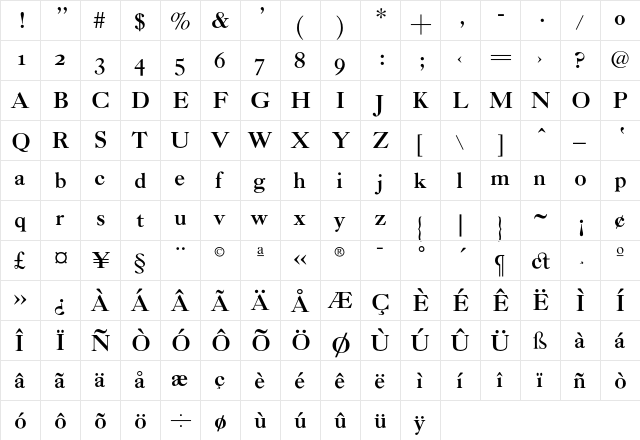
CaslonBoldZH Regular Font Preview
CaslonBoldZH Regular
Design Context for CaslonBoldZH Typeface
CaslonBoldZH takes a measured approach to typography — its balanced proportions and neutral character make it a reliable workhorse for both digital and print work. The heavy weight commands attention and anchors typographic hierarchies.